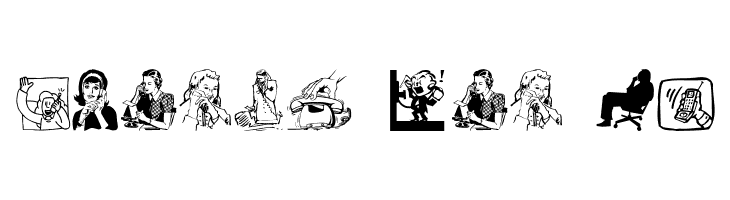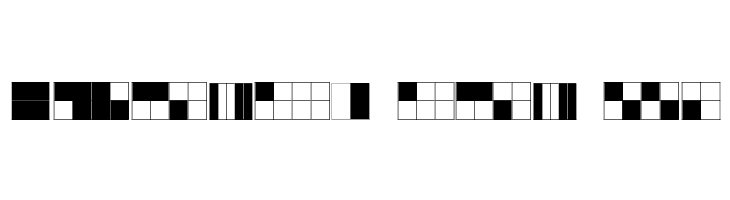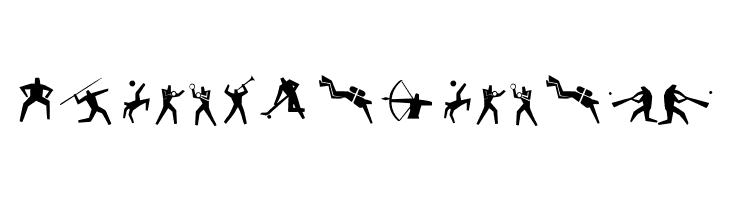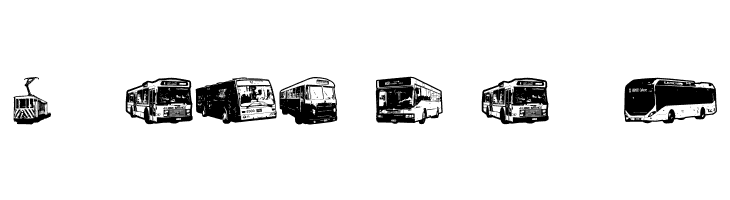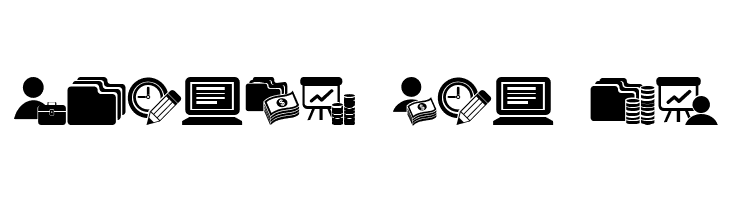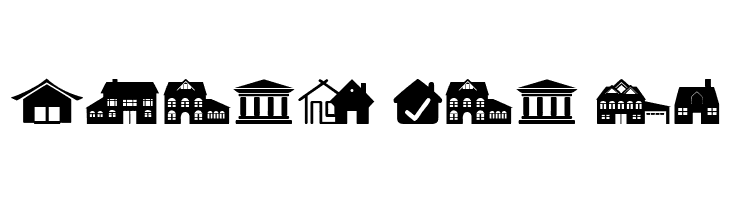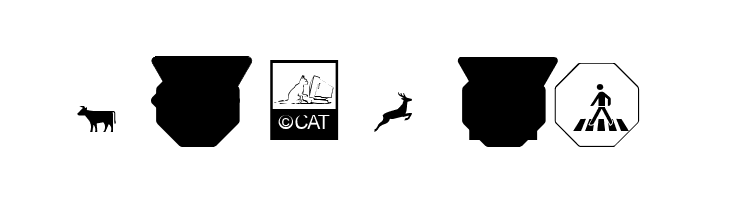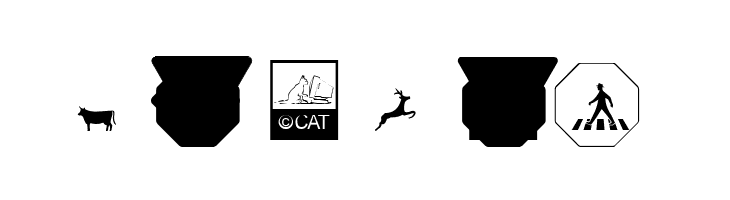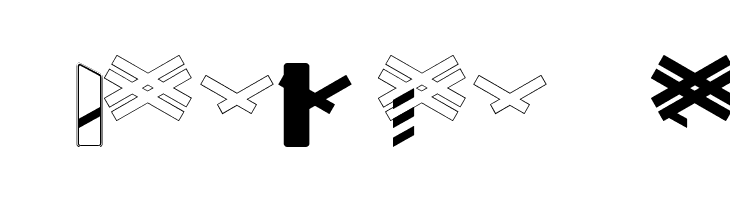
• I AM TELEFONO
A pictogram font with diverse telephone and communication illustrations.
• KG Fractions
Geometric pictogram font illustrating fractions with filled and outlined segments.
• Sport 4 Ever
• Public Transport Regular
A decorative pictogram font of public transport vehicles.
• Bankwesen Regular
A bold icon set font with business and finance pictograms.
• House Icons
A decorative icon set featuring various house and real estate symbols.
• Zeichen Hundert
A bold, geometric pictogram icon set for signage and wayfinding.
• Zeichen Zweihundert
Bold, geometric pictograms and sans-serif numerals for signage.
• Zeichen Hundert Alt
Bold, geometric pictogram icon set for signage and wayfinding.
• Zeichen Dreihundert Alt
Bold, geometric pictograms for road and traffic signage.